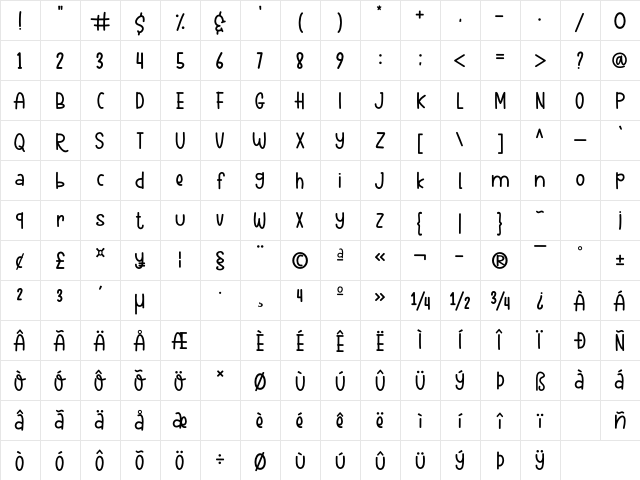
Holiday Island Regular
Designer: Sya'dan Ismail Rosyad
Design Context for Holiday Island
Holiday Island is a composed and adaptable typeface that performs quietly and consistently across a wide range of design contexts.